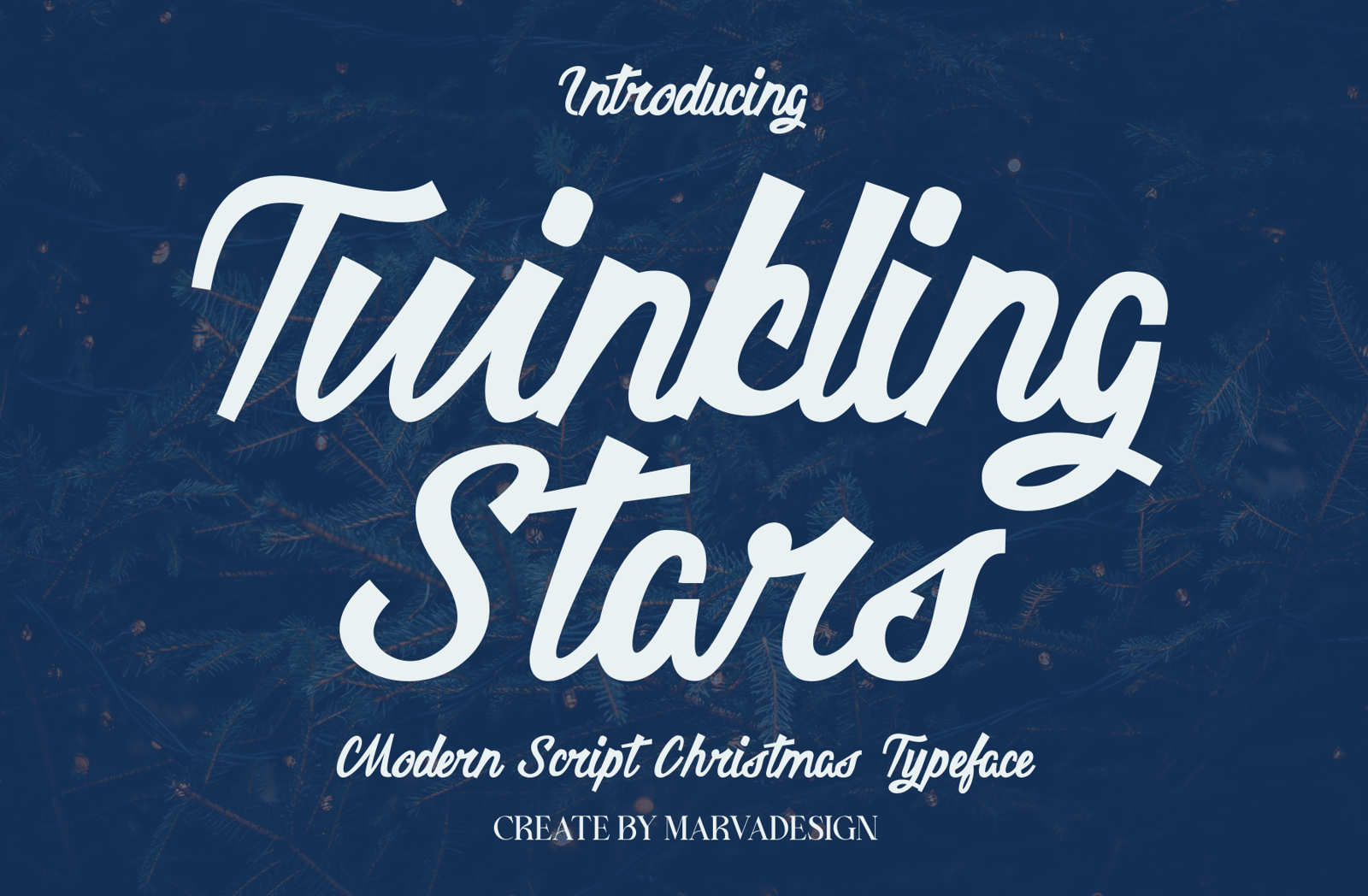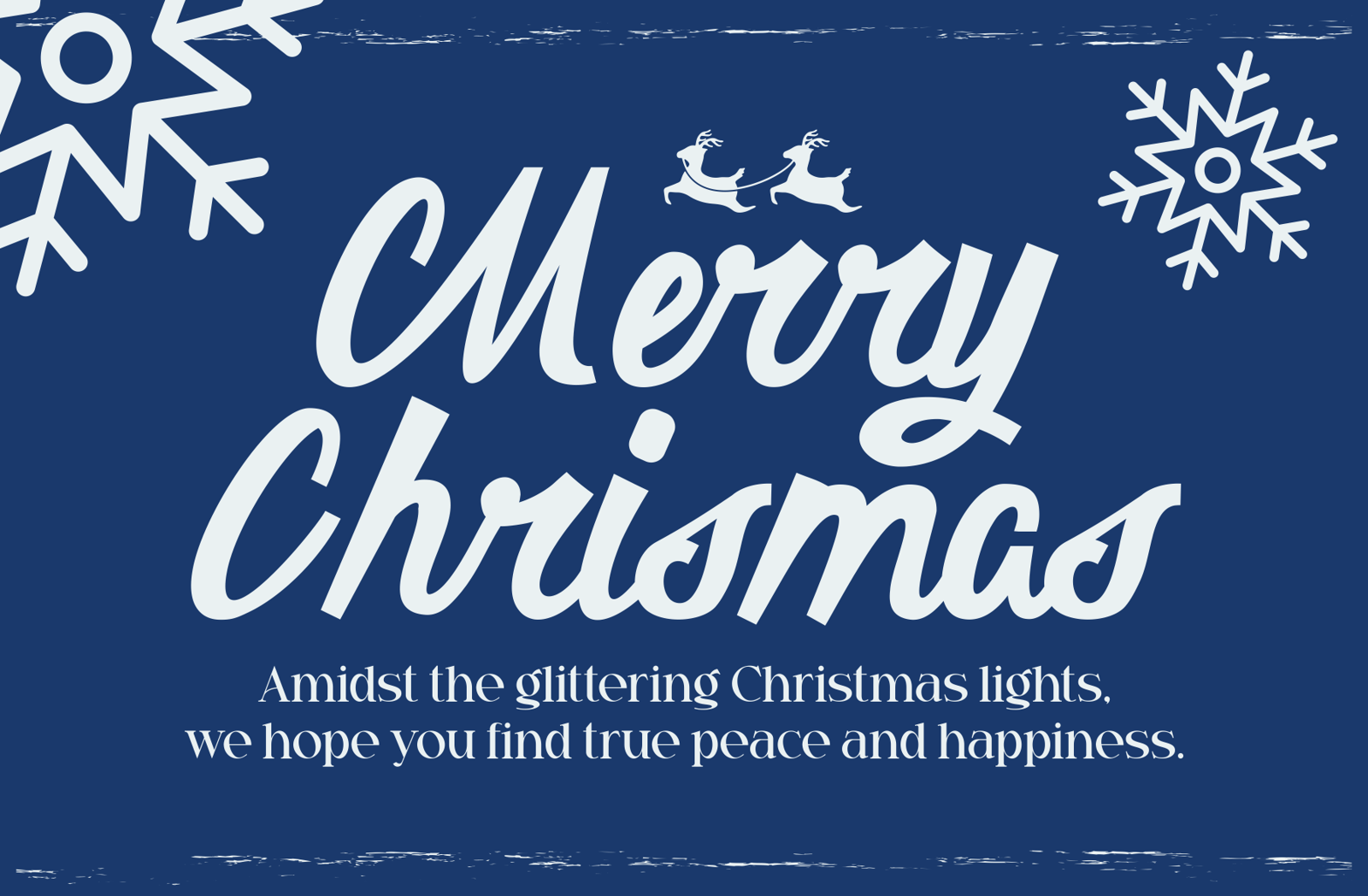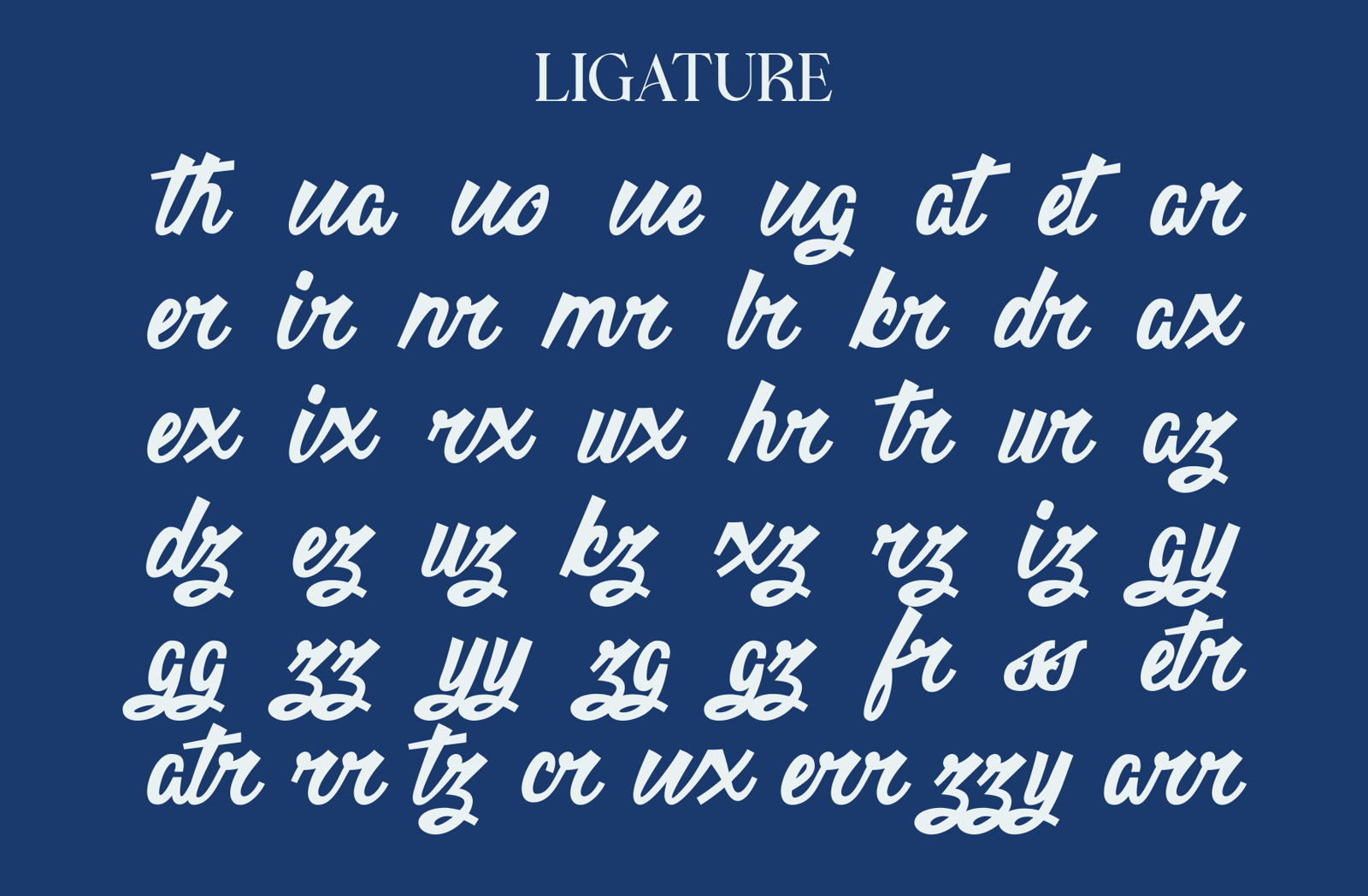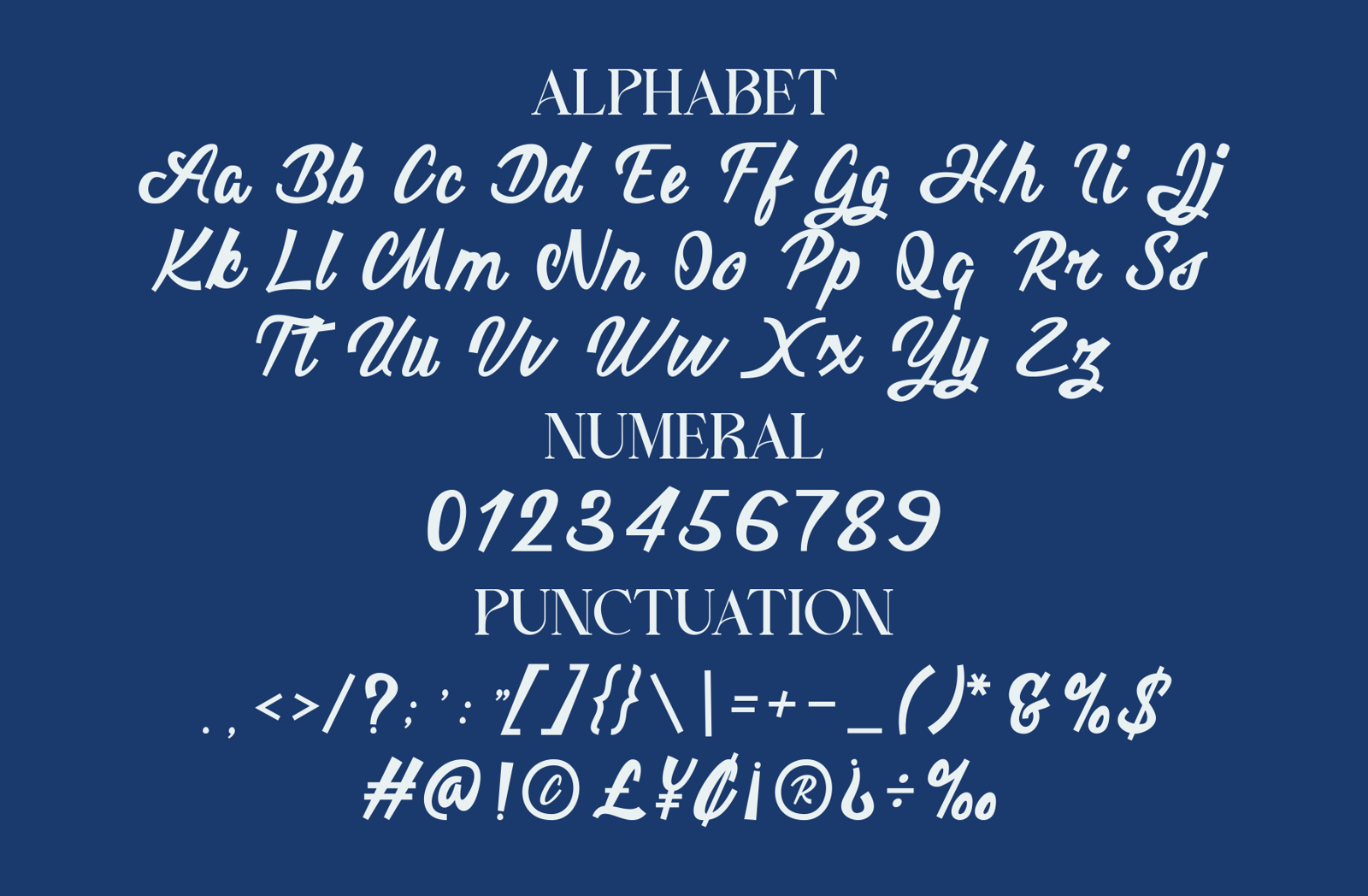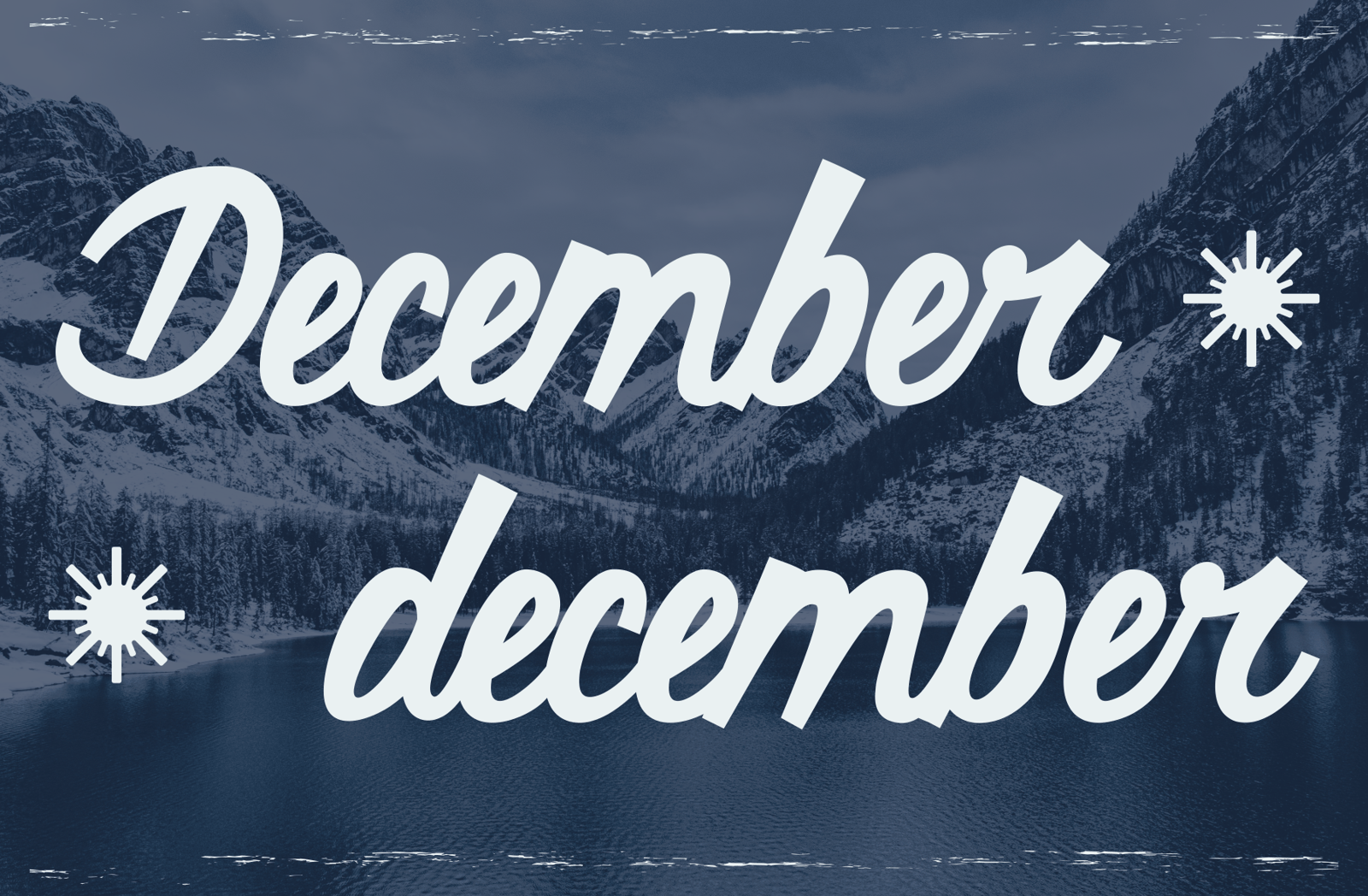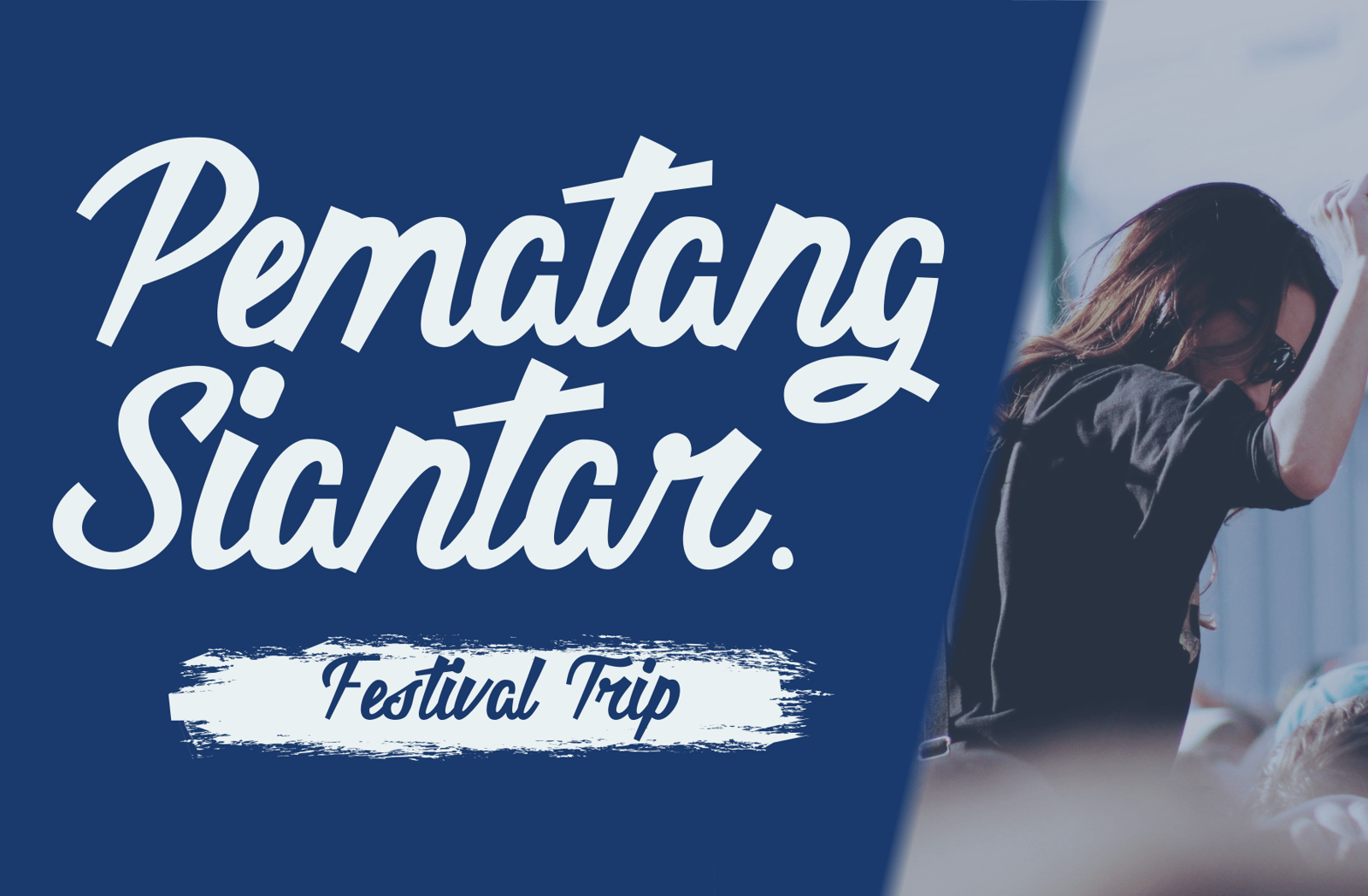
Twinkling Stars Font
Introducing our new product **Twinkling Stars Font** -Modern Script And Handwritten Font
**Twinkling Stars Font** - Modern Script And Handwritten Font authentic display font. The font is suitable for any branding project like logo, Template Design, Product and many more. outstanding in a wide range of contexts.
* Uppercase
* Lowercase
* Ligature